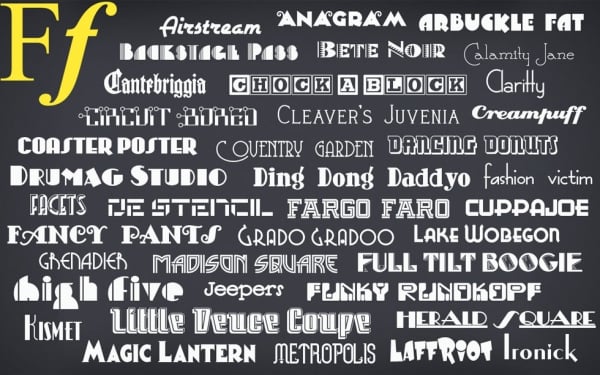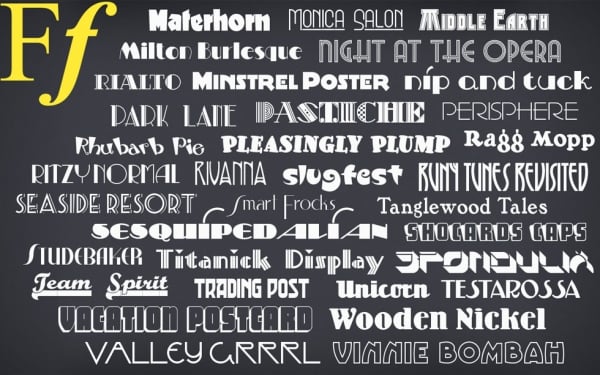
Need to change the way your text looks in a presentation, print project or a graphic design project? Download a new collection of inspiring font designs. This collection now includes 413 original fonts in OpenType font format, and can be used for any personal and business project. International character support is NOT standard for every font but is available for many of them.
These fonts are different from other font collections you may have purchased recently from MacAppware/128bit Technologies (we never overlap or duplicate our fonts in any of our free or paid collections) and are an excellent addition to any font collector’s library for use in graphic and logo design, web design, scrapbooks, presentations, invitations, promotional material, advertisements, and more.
* Cursive, creative, classic, gothic, display, block, handwritten and other beautifully crafted styles
* Perfect for presentations, logos, business cards, websites, advertisements, brochures, holidays, weddings, and more